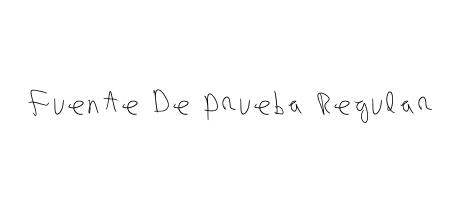
Fuente De Prueba
By Alma Fdez
Fuente De Prueba Regular is a casual handwritten script font. Its lowercase letters are slightly rounded and interconnected, giving it a flowing, informal feel. The uppercase letters maintain a similar style but are more distinct. The overall impression is one of relaxed, friendly handwritten text. It's a script that feels personal and approachable.